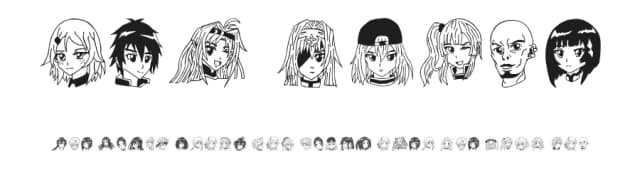
About Fairy Tail Image Font
I love the anime of Fairy Tail and because of that I made this font just for fun. your contribution is very valuable for me to make more anime fonts.
Fairy Tail Image Font is a versatile dingbats font that works for both headings and body text. Pair it with a contrasting sans-serif or serif font to add visual interest and a clear distinction between titles and body copy.
Fairy Tail Image Font